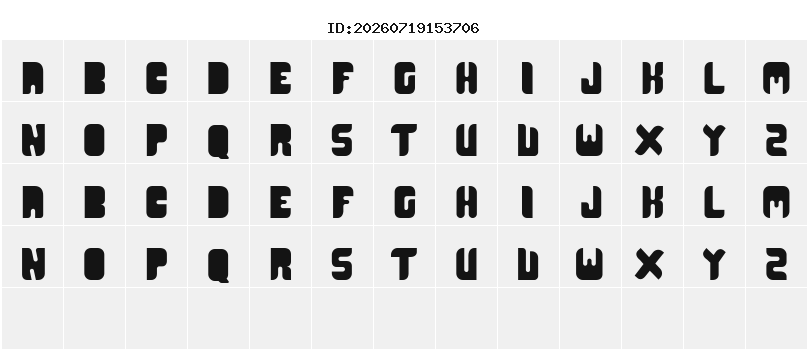
CR21TYPE Preview
• Font Name: CR21TYPE
• Full Font Name: CR21TYPE Bold
About CR21TYPE.ttf
CR21TYPE.ttf is a modern, elegant sans-serif font designed for ultimate readability and visual harmony. Perfect for branding, headlines, web design, and print materials.